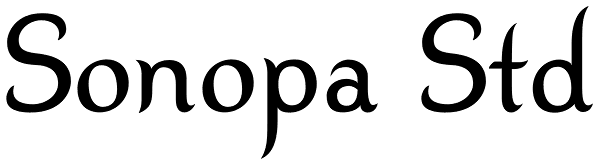
Sonopa
Sonopa is a classically unclassifiable face, with an array of standard and extended ligatures and alternates, tabular and lining oldstyle figures. In essence, it is a playful, hand-penned script, with elements of rigidity taken from more structured...